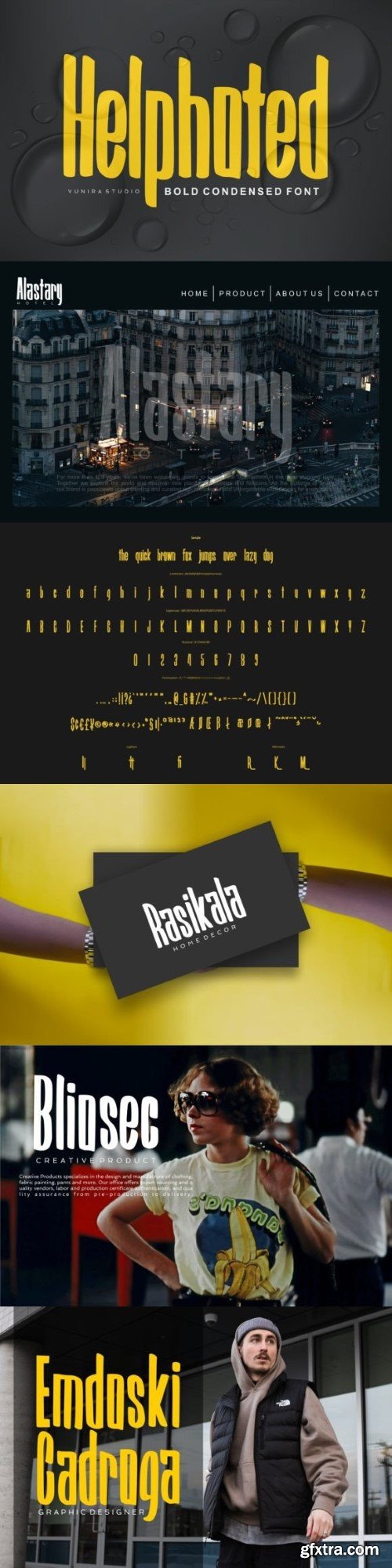
帮助字体
Helphoted – Bold Condensed is a powerful and compact font. Its strong, thick letters make a bold statement, perfect for catching attention. Whether you’re creating impactful headers or eye-catching designs, Helphoted’s condensed style adds a touch of modern flair. Ideal for a clean and confident look in your projects.